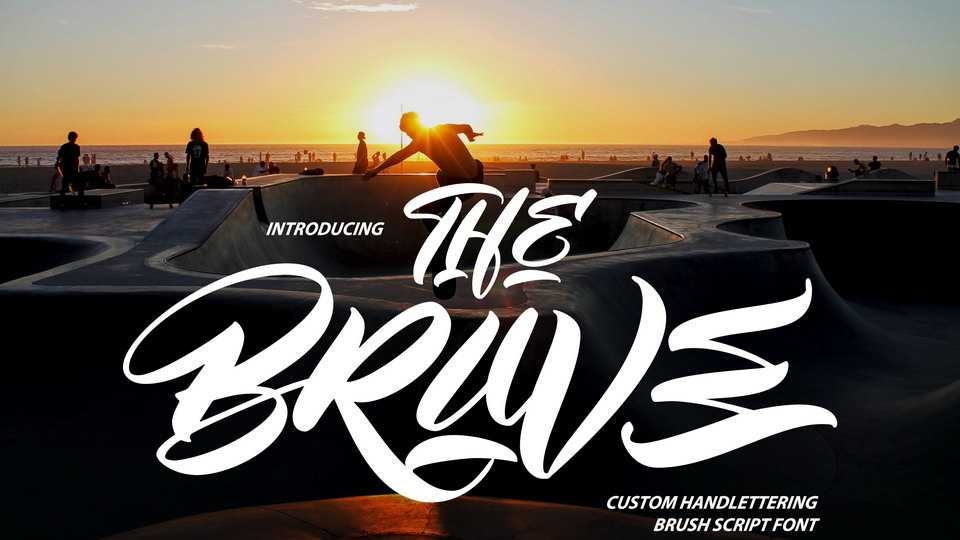
Download The Brave font, a magical handwritten typeface carefully created with a touch of elegance. The Brave is the perfect font for making original and outstanding designs.
Designer: Vunira Design